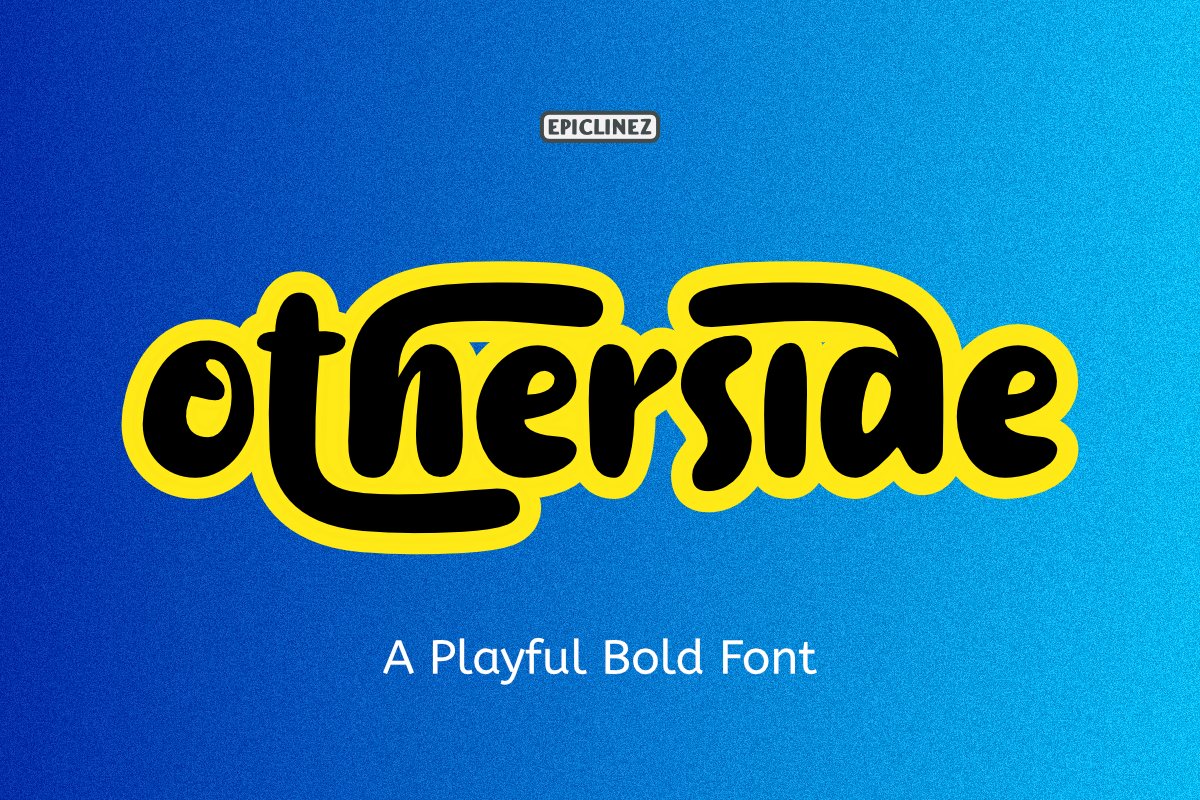
Other Side - A Playful Bold Font
Other side is a bold and playful handwritten font. It's suitable for various kinds of projects, such as logos and packaging.